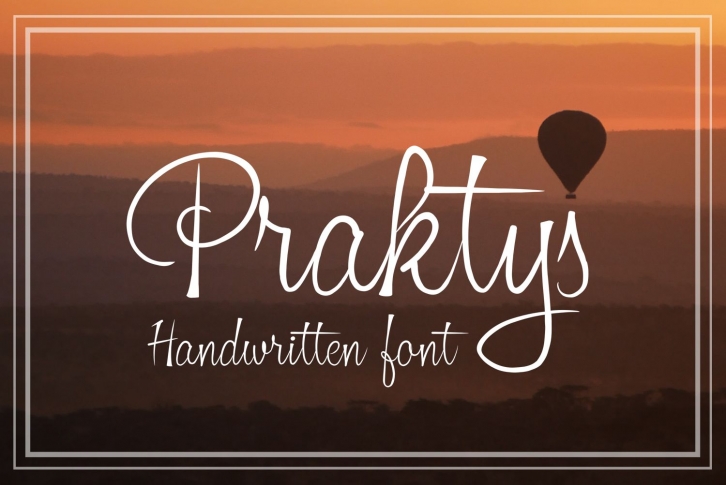
Praktys is a great font that was designed by Digital Typeface Studio. Imagine the amount of combinations you can create using this font! The archive is 10.27 MB and it was released on October 12, 2019. Praktys looks beautiful on wedding invitations, greeting cards, logos, posters, labels, t-shirt designs, logos, business cards and is perfect for use in ink or watercolor works, fashion, magazines, packaging and food menus, children's books and more!